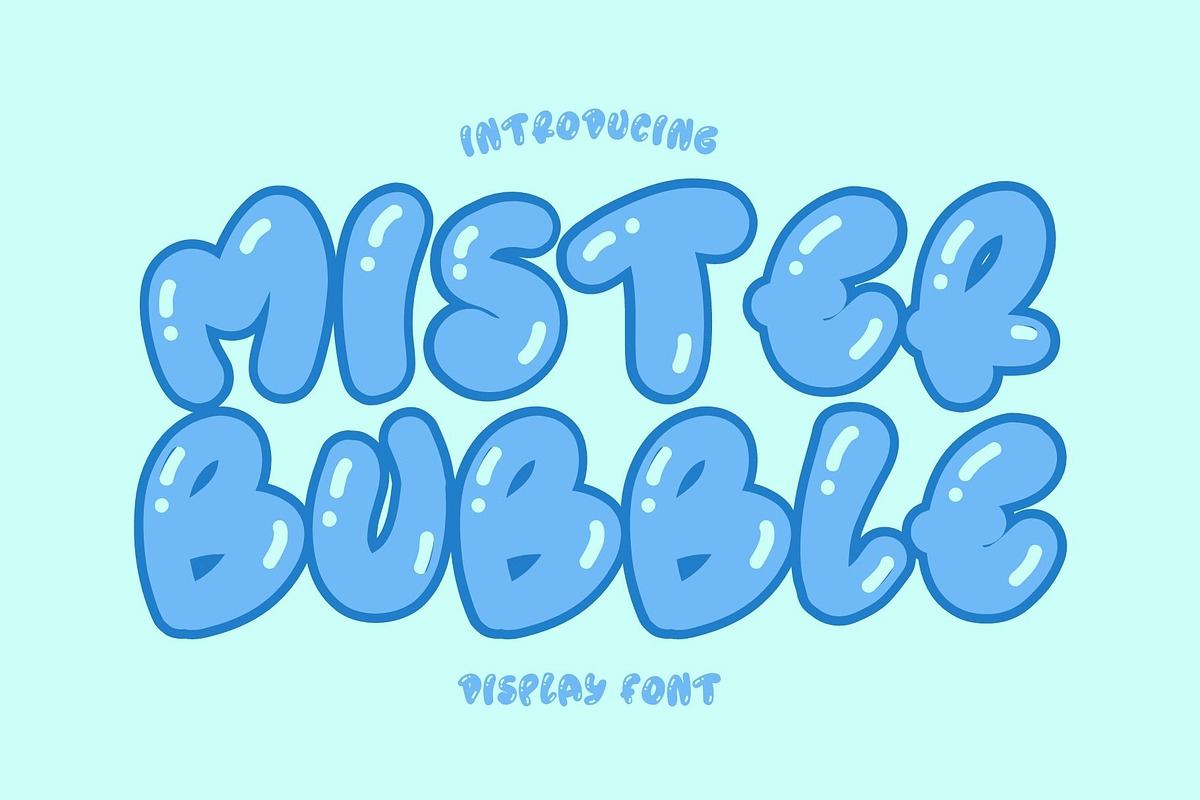
Mister Bubble Display Font Free Download is a fun and playful typeface that brings bold personality to any design. With its bubbly, rounded letters and retro charm, this font is perfect for posters, children’s books, packaging, social media graphics, and quirky branding. It’s designed to grab attention and radiate positivity.
Whether you're working on a creative campaign or playful merchandise, Mister Bubble adds a touch of fun and friendliness to your typography. Its thick, cheerful shapes make it a standout choice for designers who want to break away from the ordinary.